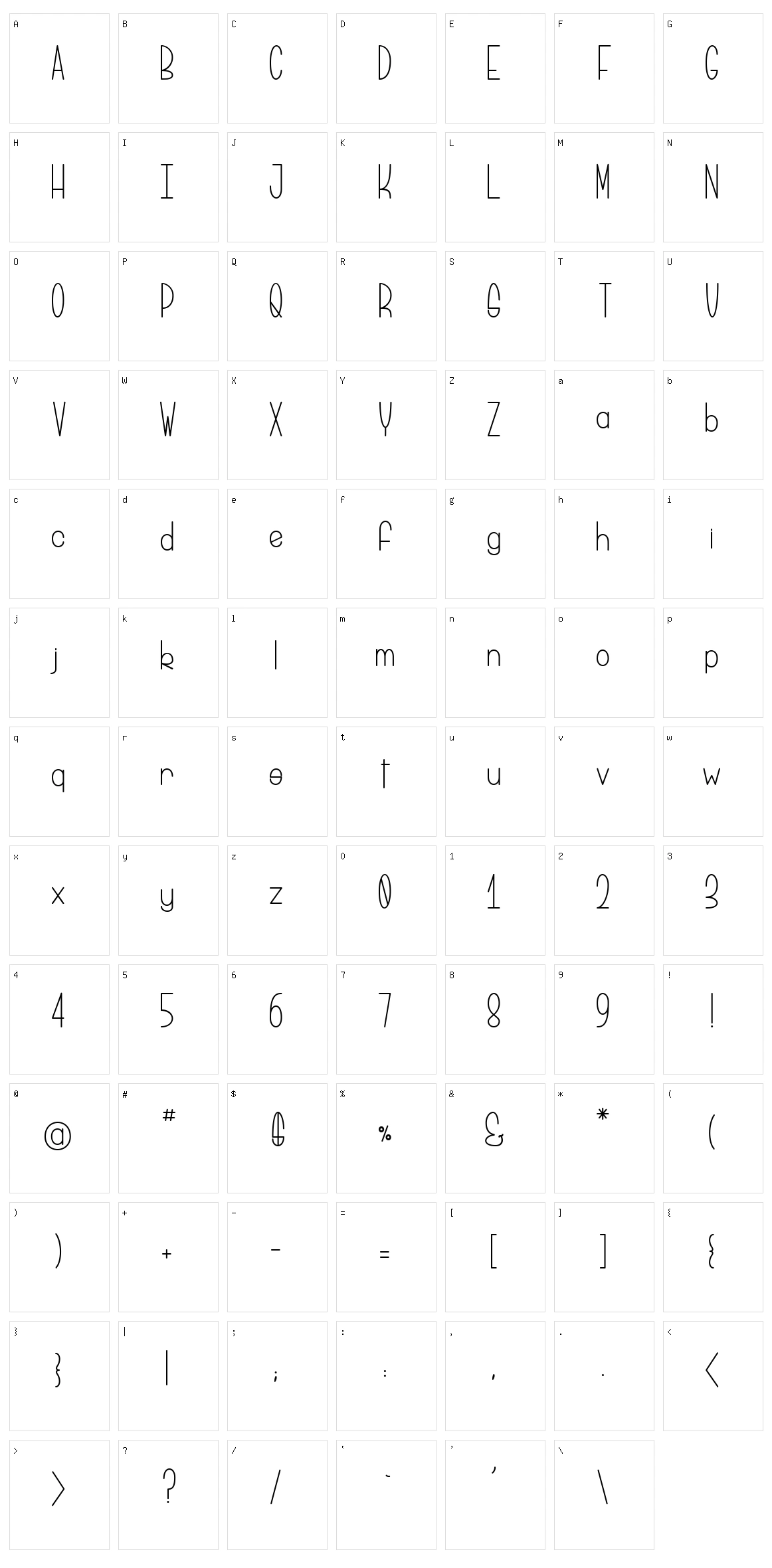
The free font Brioche au Potiron is carefully designed by dcoxy - Greg Medina, showcasing a thoughtful balance of creativity and usability and falls under the Sans serif font style. When you download the ZIP file, it contains only 28.66 KB of font files, making it lightweight and quick to download. Please review the license details below to understand permitted usage and distribution rights. If license information is not available, we recommend using this font for personal projects only or contacting the author directly for commercial usage permissions.